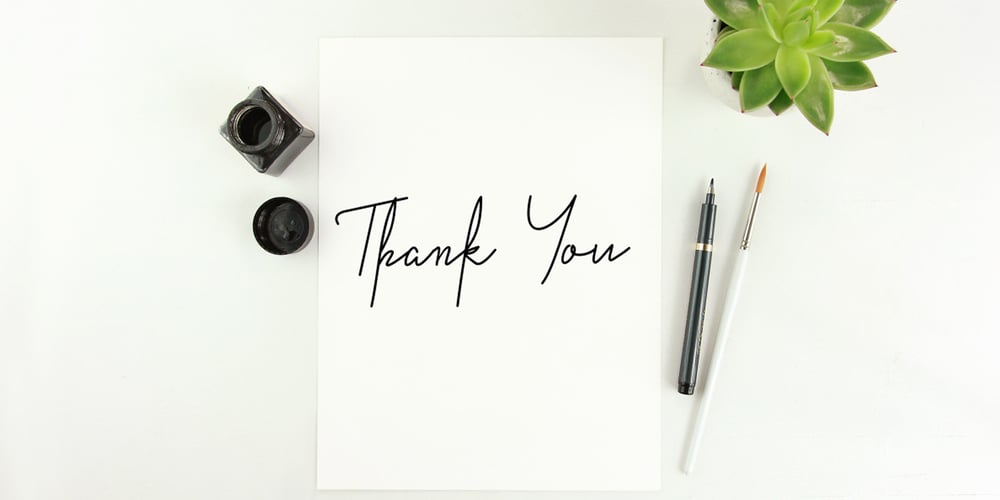
Catalonia Font Family was designed by Rohmat Sidiq Mustaqim and published by Dieza Design. Catalonia contains 1 styles and family package options. This is our newest product, we call it Catalonia! Catalonia is a hand writing font, with sweet touches and unique personality in each letter. Catalonia is very good to use on: – Wedding invitations, – Fashion magazines – Logos – Signatures – Photography watermarks